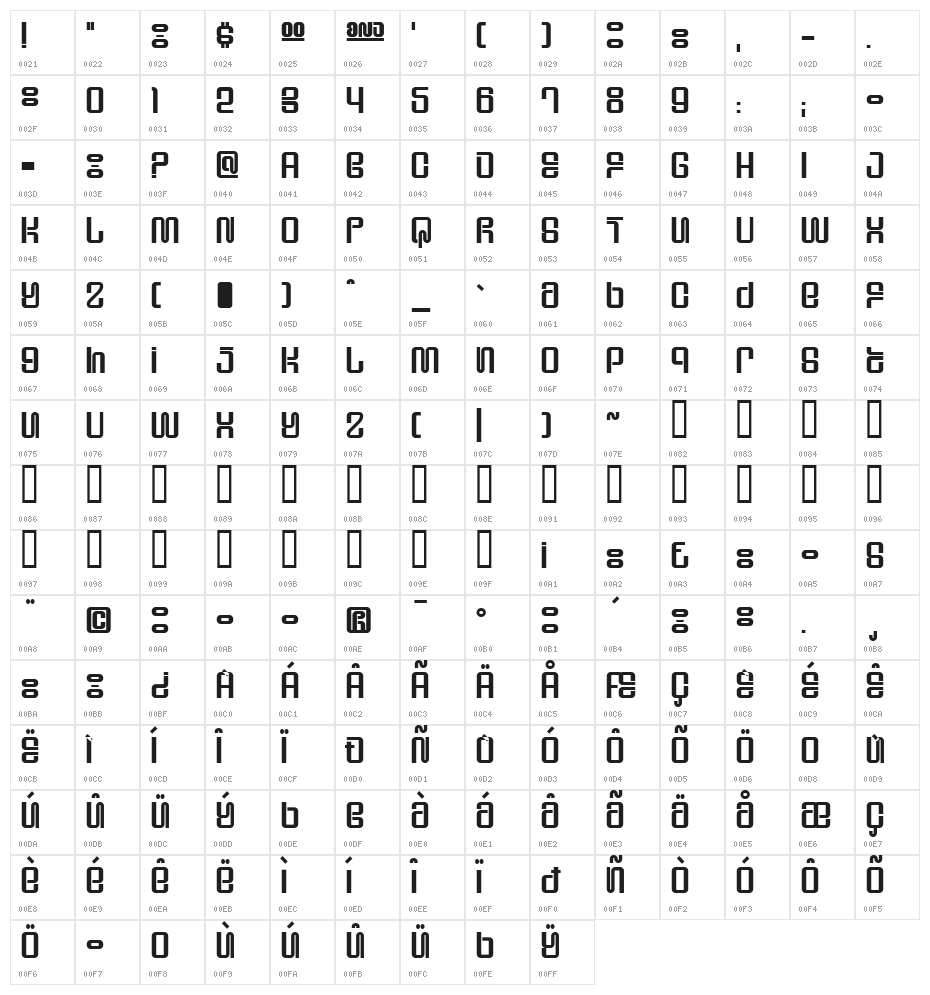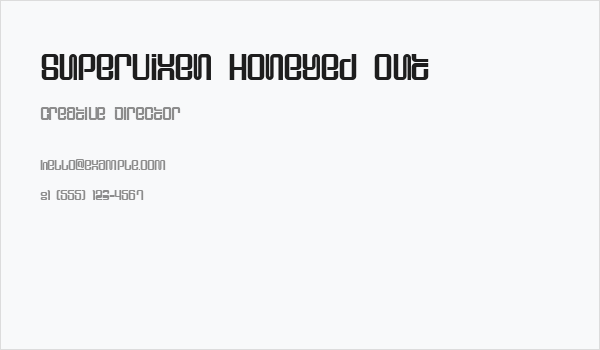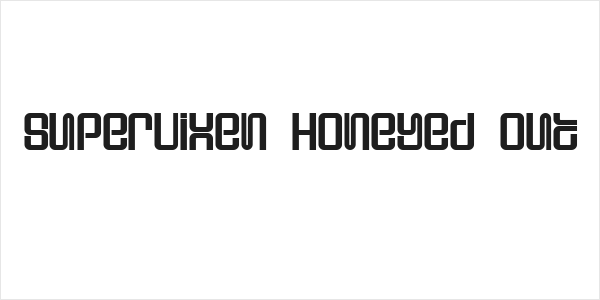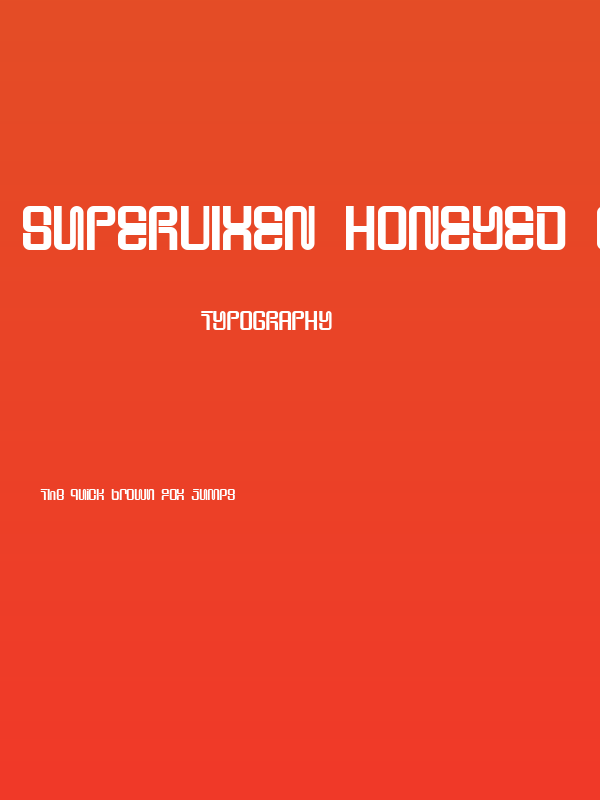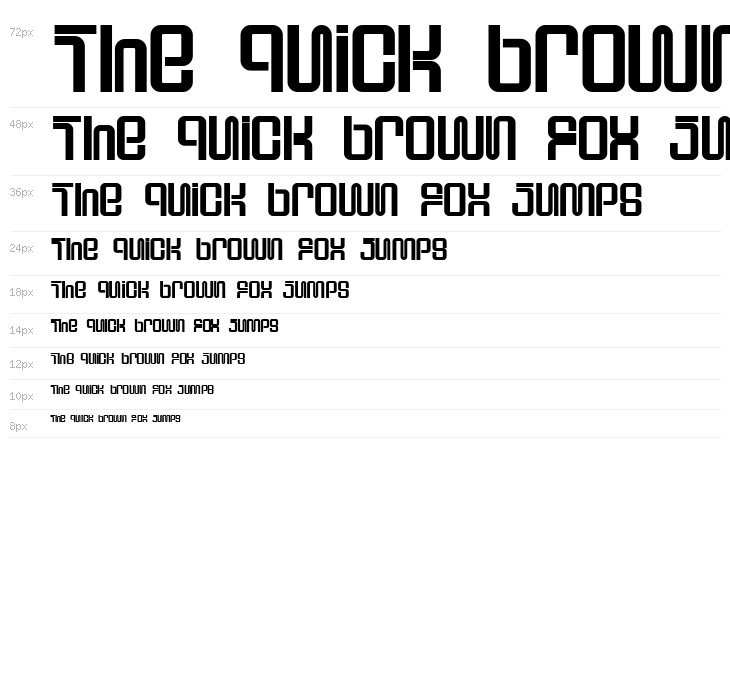
Supervixen Honeyed Out Font
Supervixen Honeyed Out Description
This font features a bold, geometric design with a modern and futuristic aesthetic. The characters are constructed with uniform stroke widths, creating a cohesive and structured appearance. The uppercase and lowercase letters maintain a consistent height, contributing to a monospaced feel. The rounded edges and closed apertures give it a friendly yet technical look. The numerals and special characters are designed to match the overall style, ensuring visual harmony across all elements. This font is ideal for projects that require a contemporary and tech-savvy vibe.
| Overall Style | Futuristic, Geometric |
| Use Case | Logos, Headlines, Digital Interfaces |
| Proposed Projects | Ideal for tech branding, digital interfaces, and modern advertising campaigns. |